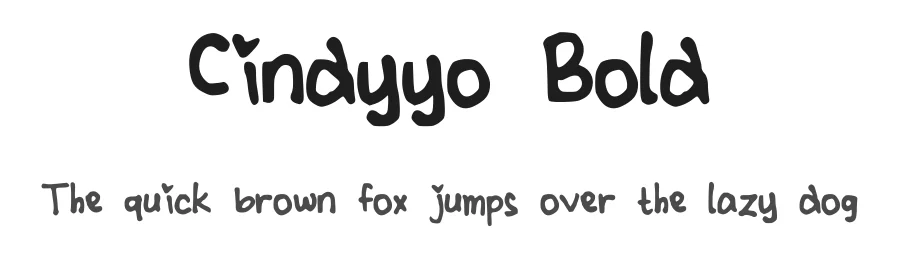
About Cindyyo Font
a handwritten by me.
Cindyyo Font is a script font that shines as a display or heading face. Pair it with a clean sans-serif or serif font for body text β the contrast creates a clear hierarchy while the two styles stay balanced and easy to read.
Cindyyo Font